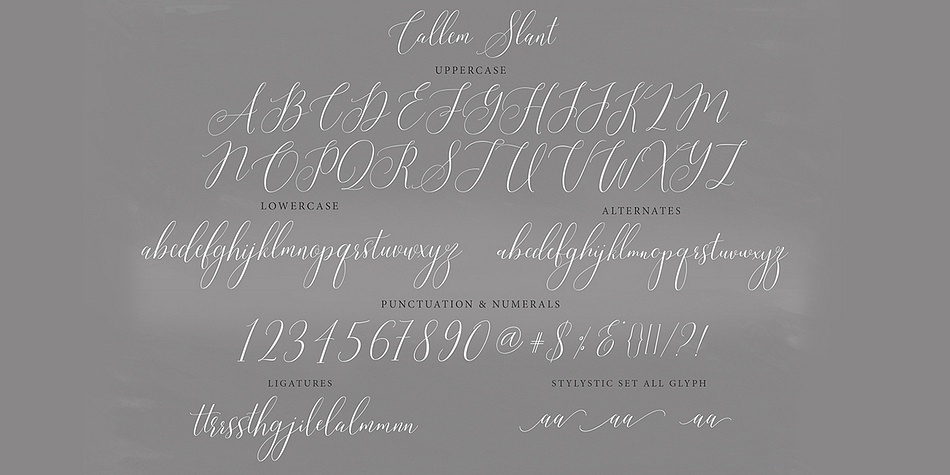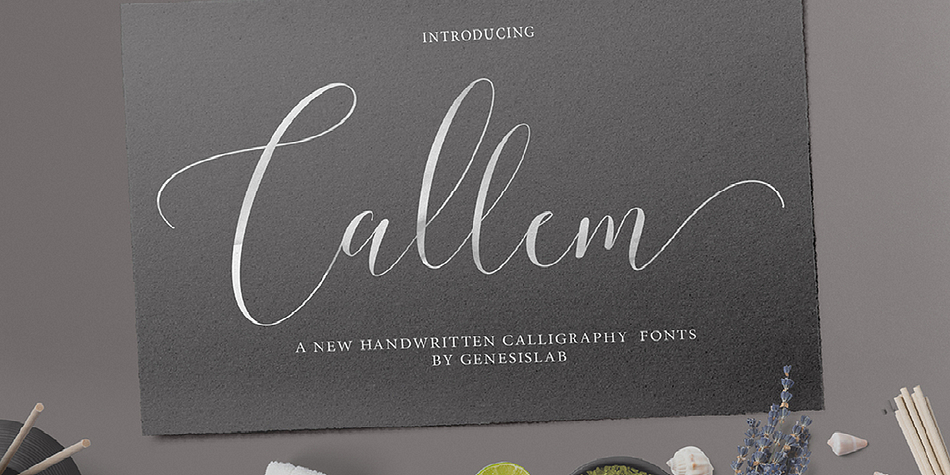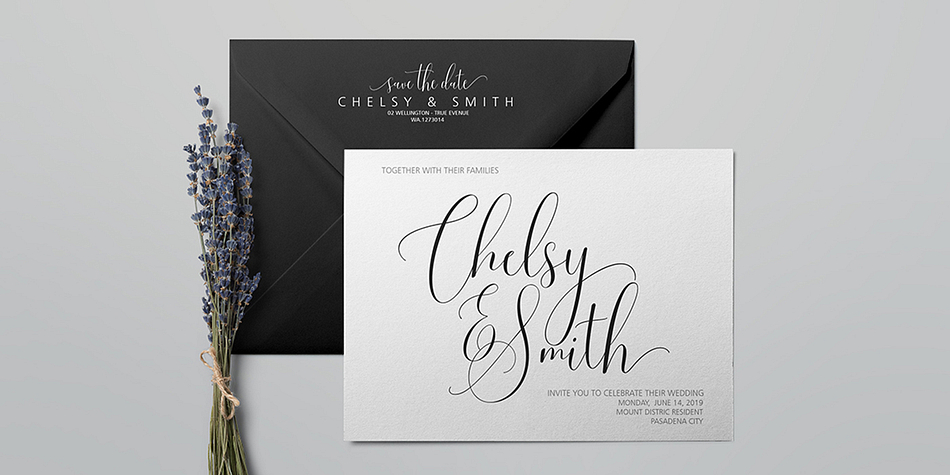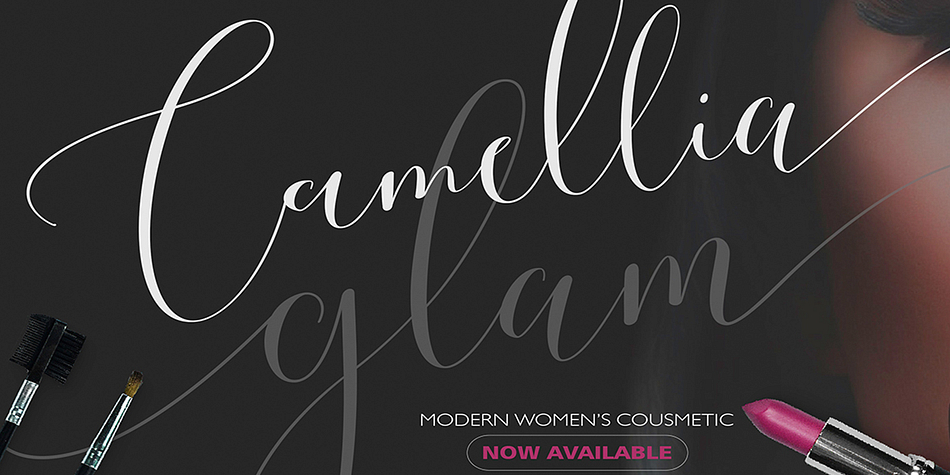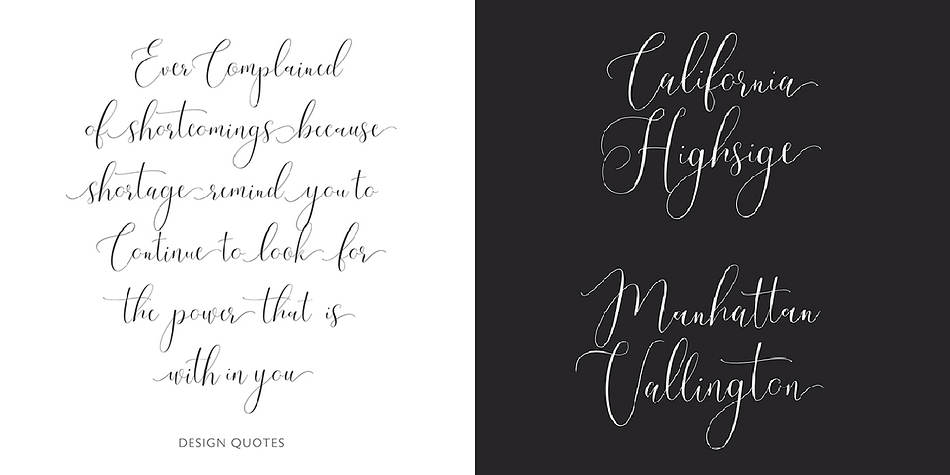
Callem Script is a modern calligraphy font family. This typeface has two styles and was published by Genesislab.
Callem Script and Slant are the latest script font with a beautiful calligraphy style from natural handwriting with classic contemporary style and very natural, now you can also get this beautiful font to design with.
This font is perfect for wedding invitation design, signature, letterhead, logo, shirt, and everything in between. With so many OpenType features available, you can mix and match styles to create the perfect work.